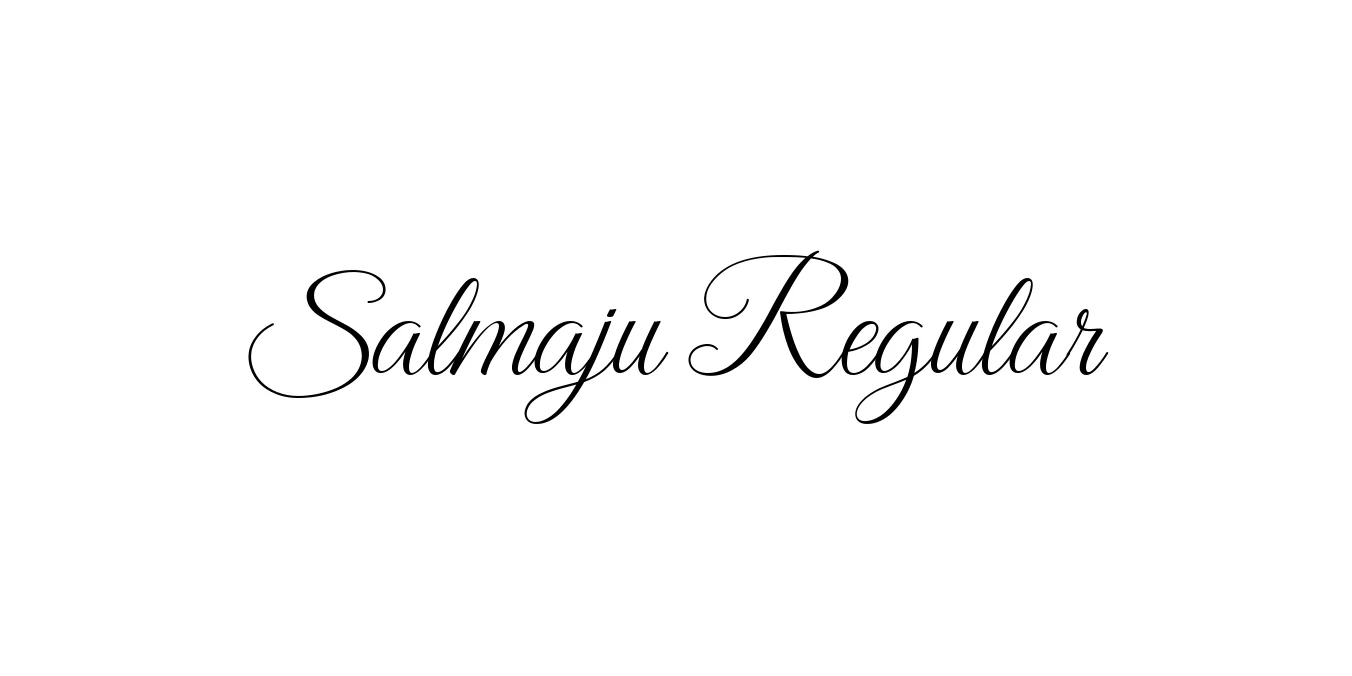
Salmaju Regular
Designed by Yusuf Sangaji (Sngj Studio)
| Font Name | Salmaju |
| Category | Script / Signature |
| Designer | Yusuf Sangaji (Sngj Studio) |
Salmaju Regular is a sophisticated script typeface that embodies elegance and modern flair. Crafted with smooth, flowing strokes, it mimics natural handwriting while maintaining a high level of legibility. Its balanced proportions and refined curves make it an excellent choice for designers looking to add a touch of luxury and personality to their creative projects.
This font is particularly effective for high-end branding, fashion editorials, and wedding stationery. Since its release, Salmaju Regular has become a favorite for its versatility, bridging the gap between formal calligraphy and contemporary aesthetic trends. Whether used for digital signatures or hero images, it provides a distinctive, handcrafted feel that resonates with elegance.
Salmaju Regular Best Uses
Perfect for adding a romantic and personal touch to formal invites.
Ideal for logos, business cards, and identity designs for luxury brands.
Great for creating eye-catching quotes and stylized captions on visual platforms.
Works exceptionally well as a watermark for professional portfolios and lifestyle shots.